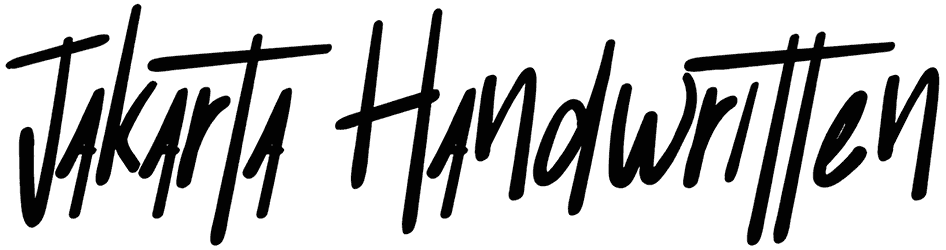
Jakarta Handwritten Font
Jakarta Handwritten is a script font with realistic, natural features. Its aggressive and edgy letterforms may be unreadable, so try to use them in the small dimensions of calligraphy, branding, cards, flyers, garment design, and other applications.
This font retains a classy calligraphic influence while feeling contemporary and fresh. This versatility will attract a wide range of creative ideas, from letterheads and titles to stationery.